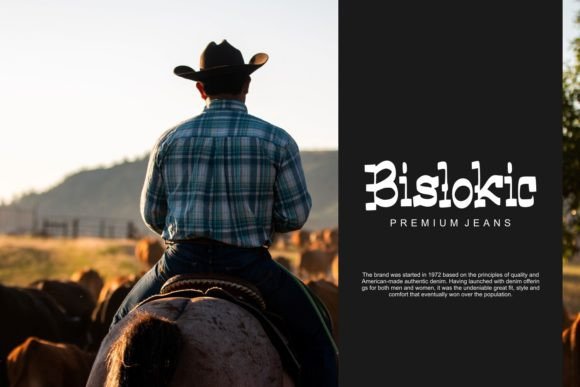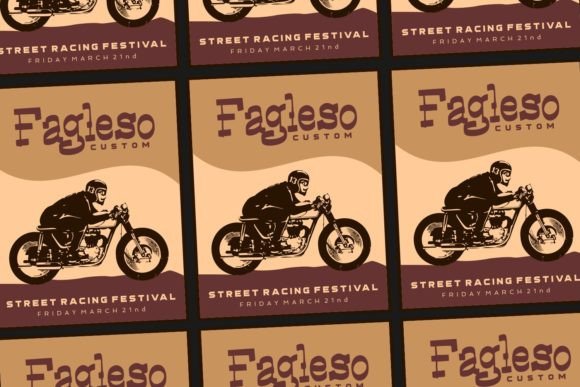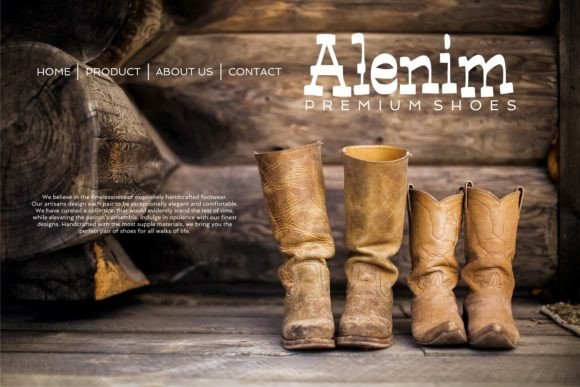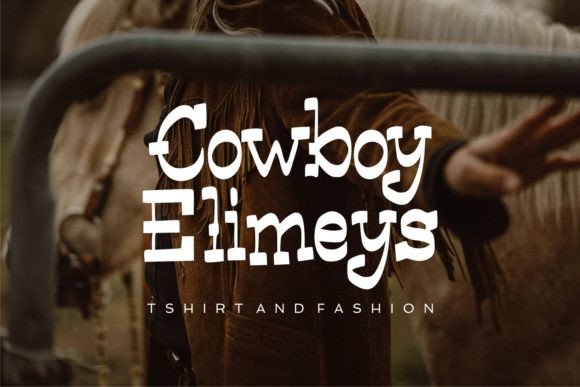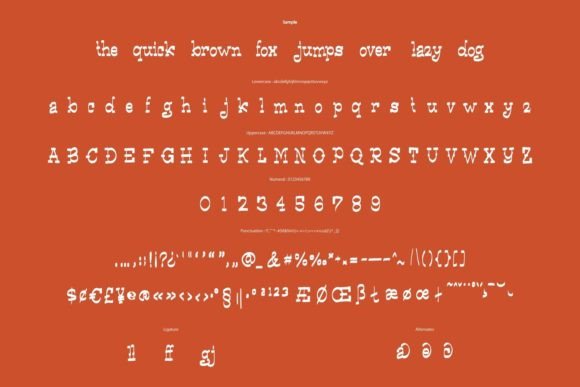
Introduction to Rapi Horse Font
Have you ever found yourself scrolling through design inspiration boards, searching for that perfect font to bring your creative project to life? Maybe you’ve been stuck on a design and just can’t seem to find the right combination of style and flair. For designers looking to add a touch of the Wild West to their work, there’s a new design resource that’s about to become your go-to: the Rapi Horse Font.
This modern Western font is a game-changer for designers who want to add a high-quality, free download to their toolkit. With its sleek design and transparent background, Rapi Horse Font is perfect for creating a bold statement in your designs. Whether you’re working on a poster, logo, or any project that needs a hint of Western flair, this versatile font is sure to impress.
As a valuable addition to any designer’s arsenal, Rapi Horse Font offers endless possibilities for creative expression. From its modern twist on classic Western aesthetics to its ease on the eyes, this font is a must-have for anyone looking to elevate their design game.
Key Features of Rapi Horse Font
- High-quality design for creative projects, including logos, branding, and more.
- Rapi Horse Font is available in a single weight, with a standard font size of 72 points and a resolution of 300 DPI.
- Unique characteristics include a playful, handwritten style and a wide range of creative possibilities.
- Perfect for designers looking for a free, high-quality font to elevate their design projects.
Honest Review: Rapi Horse Font
As a designer, I’m always on the lookout for unique and high-quality design resources to enhance my creative projects. The Rapi Horse Font caught my attention with its quirky and playful style, and I was excited to try it out.
Here are some things that work well: ✨ The font is incredibly versatile, suitable for a wide range of design applications, from branding and marketing materials to digital products and even print materials. ✨ The free download option is a major plus, making it accessible to designers of all levels and budgets. ✨ The transparent background feature allows for seamless integration with other design elements, adding an extra layer of professionalism to any project.
However, there are some limitations to consider: ⚠️ The font may not be suitable for formal or professional projects, as its playful nature may not convey the desired level of sophistication. ⚠️ The font’s quirky style may not appeal to all designers, and some may find it too unconventional for their taste.
Overall, I’d say that the Rapi Horse Font is a great addition to any designer’s toolkit, offering a fun and creative way to add some personality to your projects. With its high-quality design and versatile applications, it’s definitely worth checking out.
- Perfect for creative projects requiring a playful touch
- High-quality design with a transparent background
How to Use Rapi Horse Font
The Rapi Horse Font is a high-quality design resource ideal for creative projects. It is available for free download and features a transparent background, making it easy to integrate into various design platforms.
Tips for Getting the Most Out of Rapi Horse Font
To get the most out of Rapi Horse Font, experiment with different font sizes, colors, and combinations. You can also use it in conjunction with other design elements to create a cohesive and visually appealing design.
Rapi Horse Font is ideal for a variety of design projects, including social media graphics, blog posts, and marketing materials. It’s also a great choice for creating unique and eye-catching titles or headings.